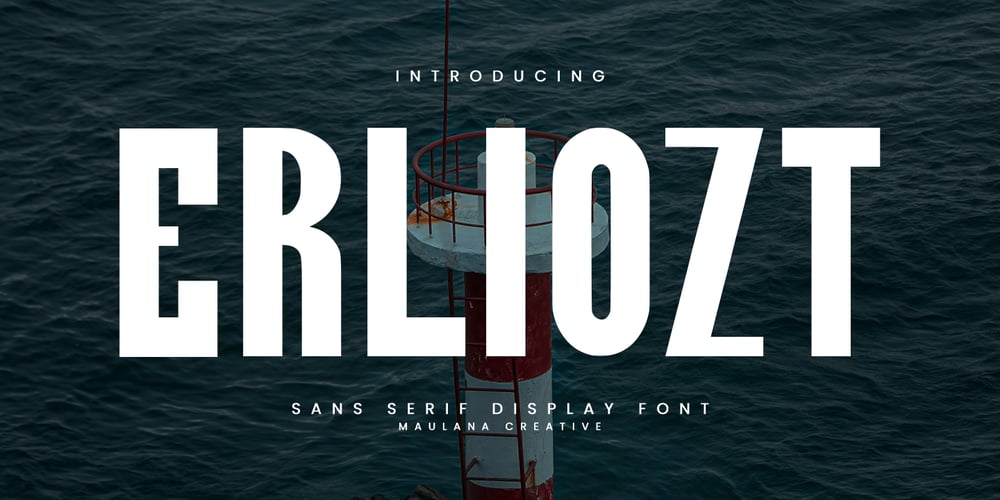
MC Erliozt Font Family was designed by Gilang Maulana and published by Maulana Creative. MC Erliozt contains 1 styles and family package options. Erliozt is a sans serif display font. With bold tall and sharp stroke, fun character with a bit of ligatures and alternates. To give you an extra creative work. Erliozt font support multilingual more than 100+ language. This font is good for logo design, Social media, Movie Titles, Books Titles, a short text even a long text letter and good for your secondary text font with sans or serif. Make a stunning work with Erliozt font.–UppercaseCheers,Maulana Creative